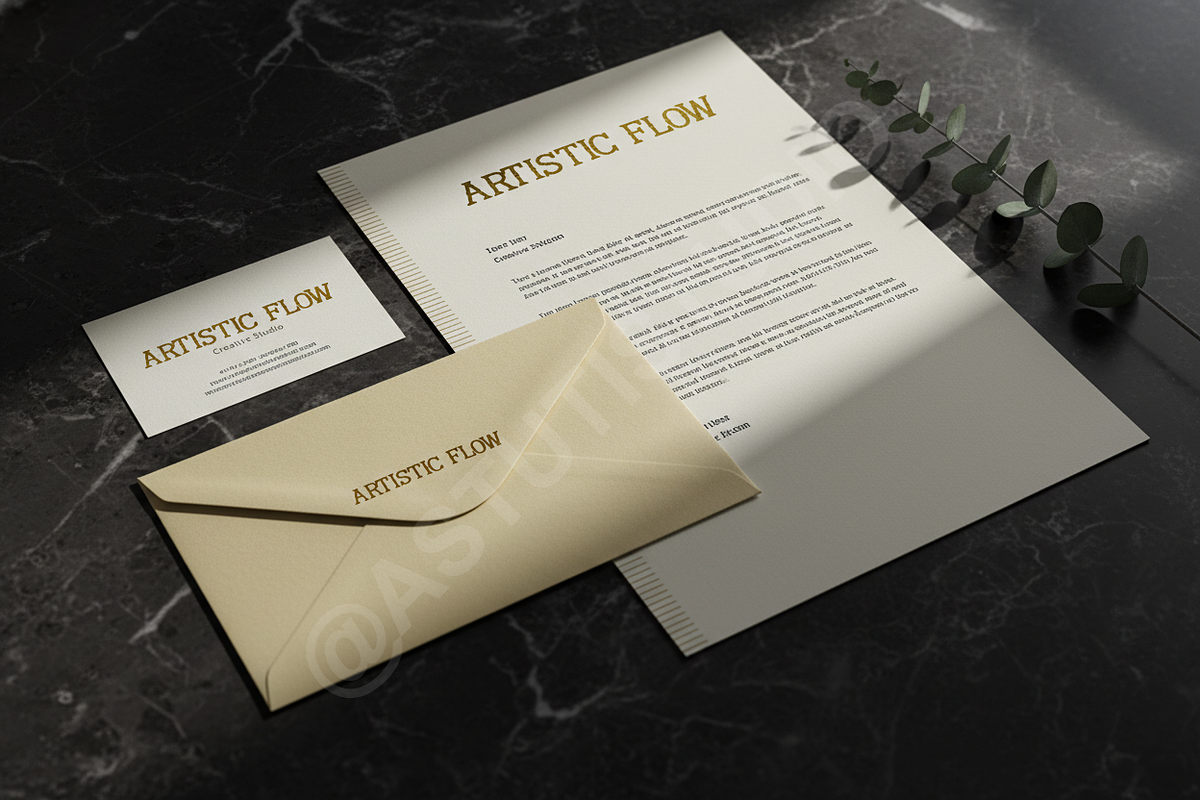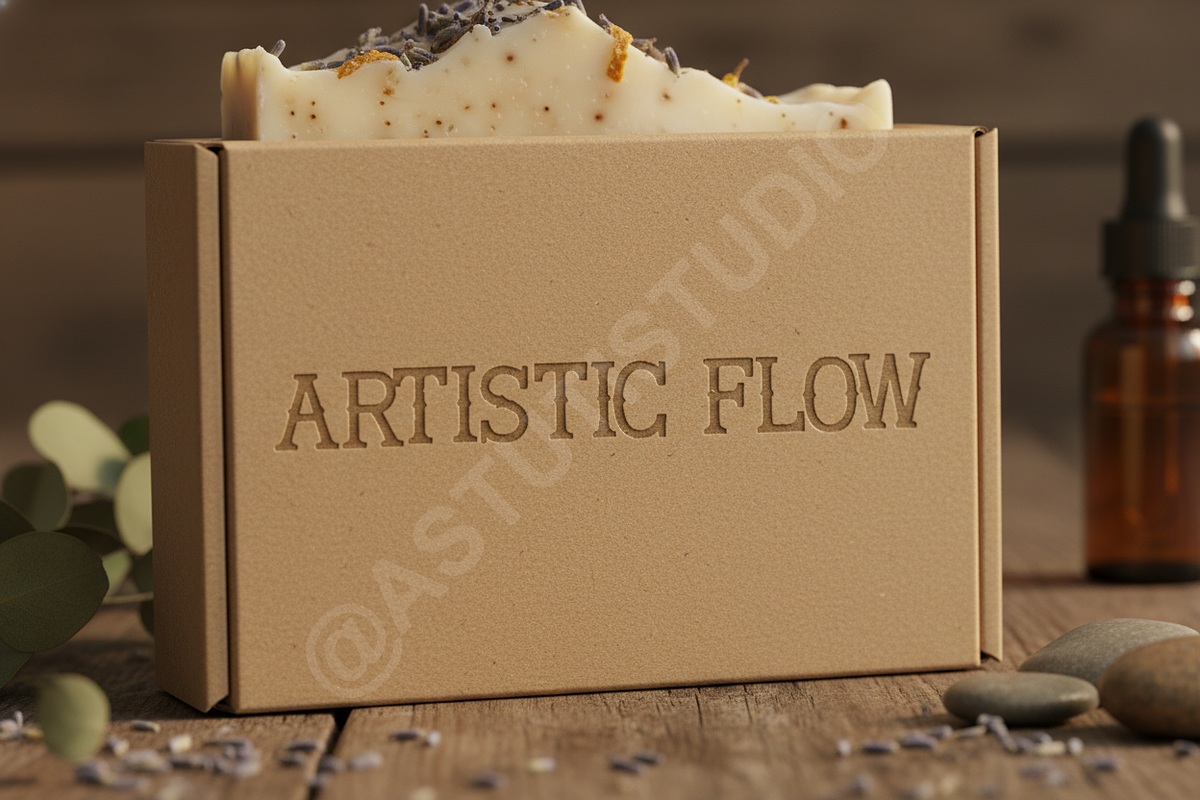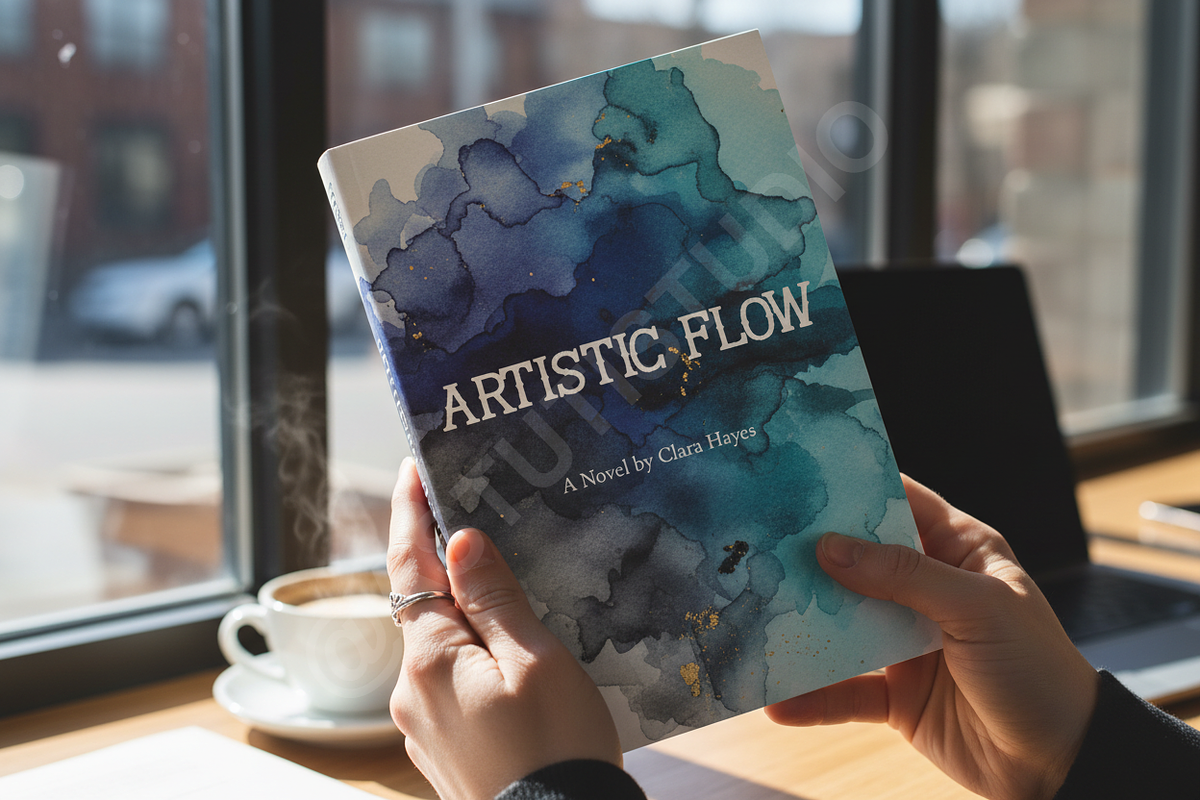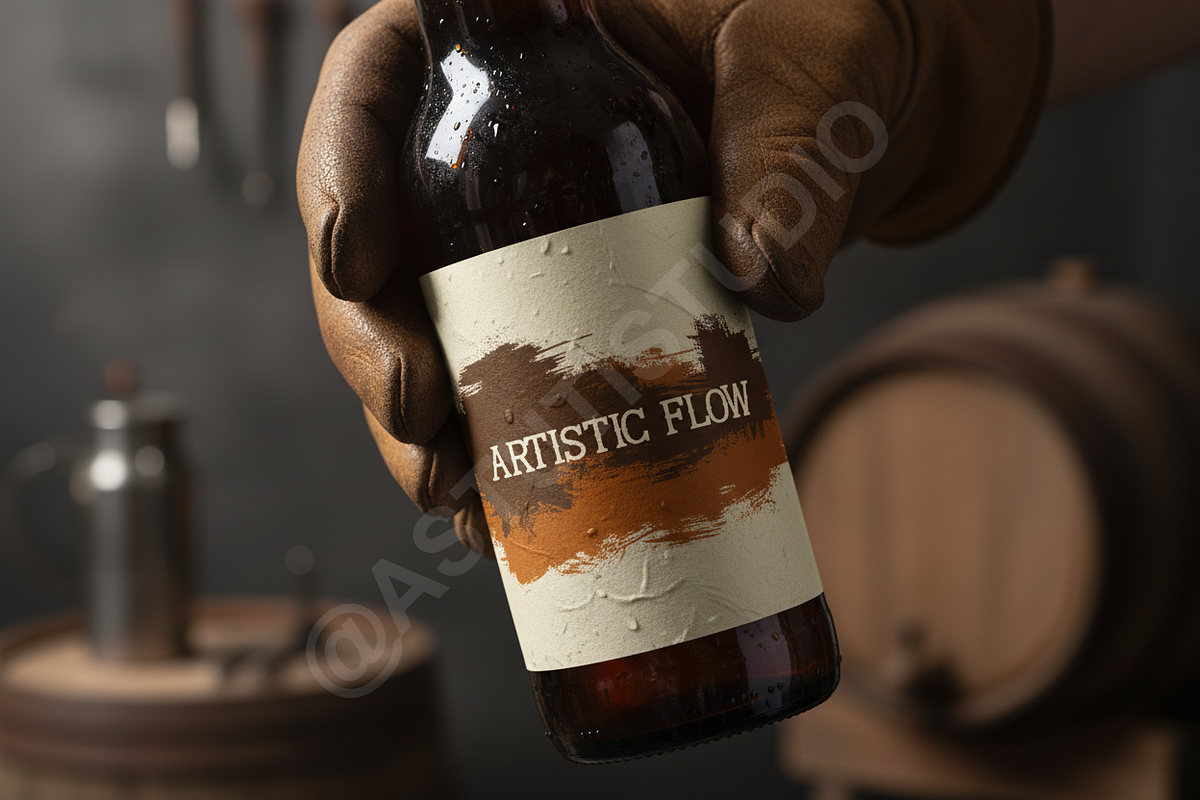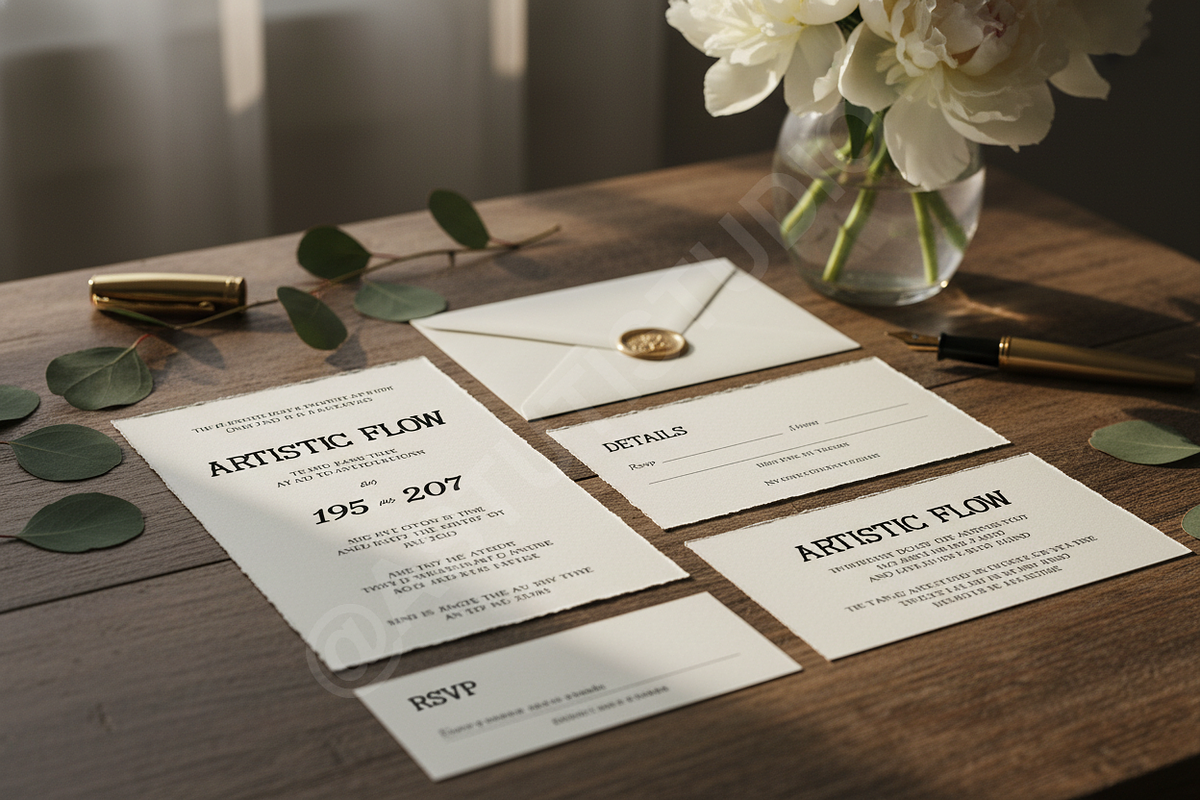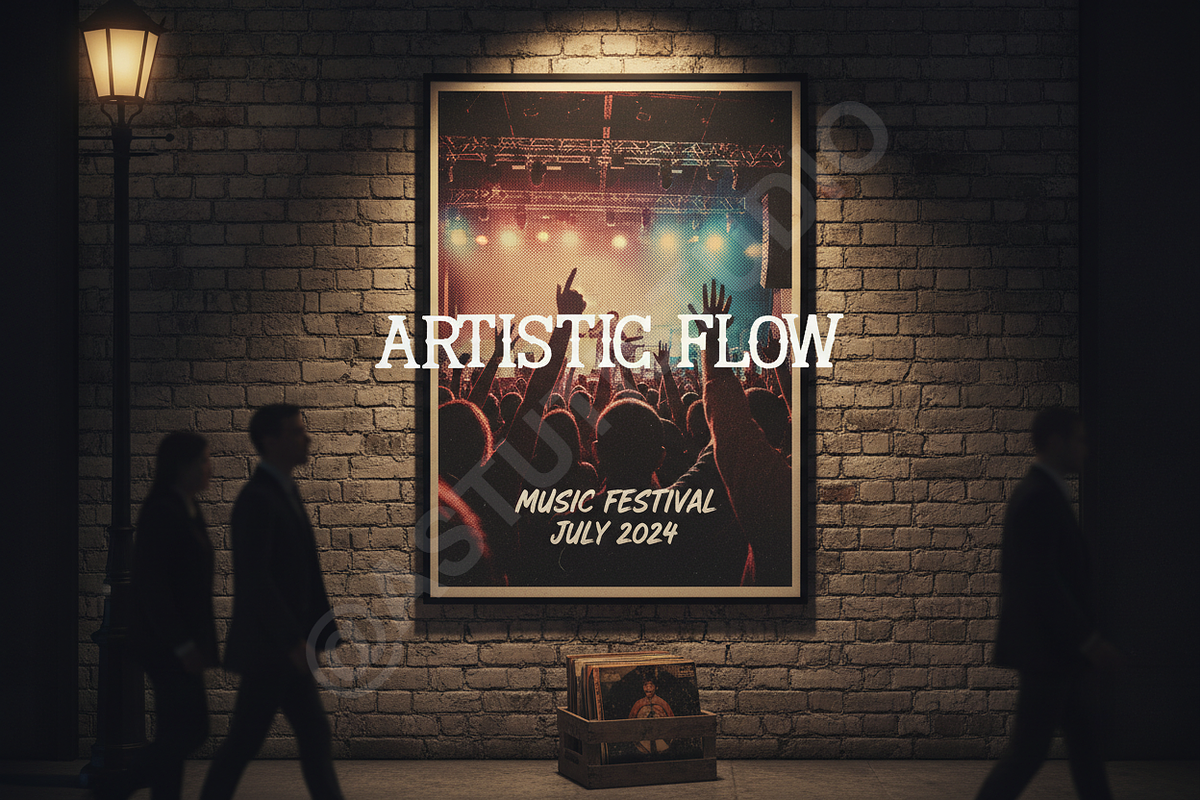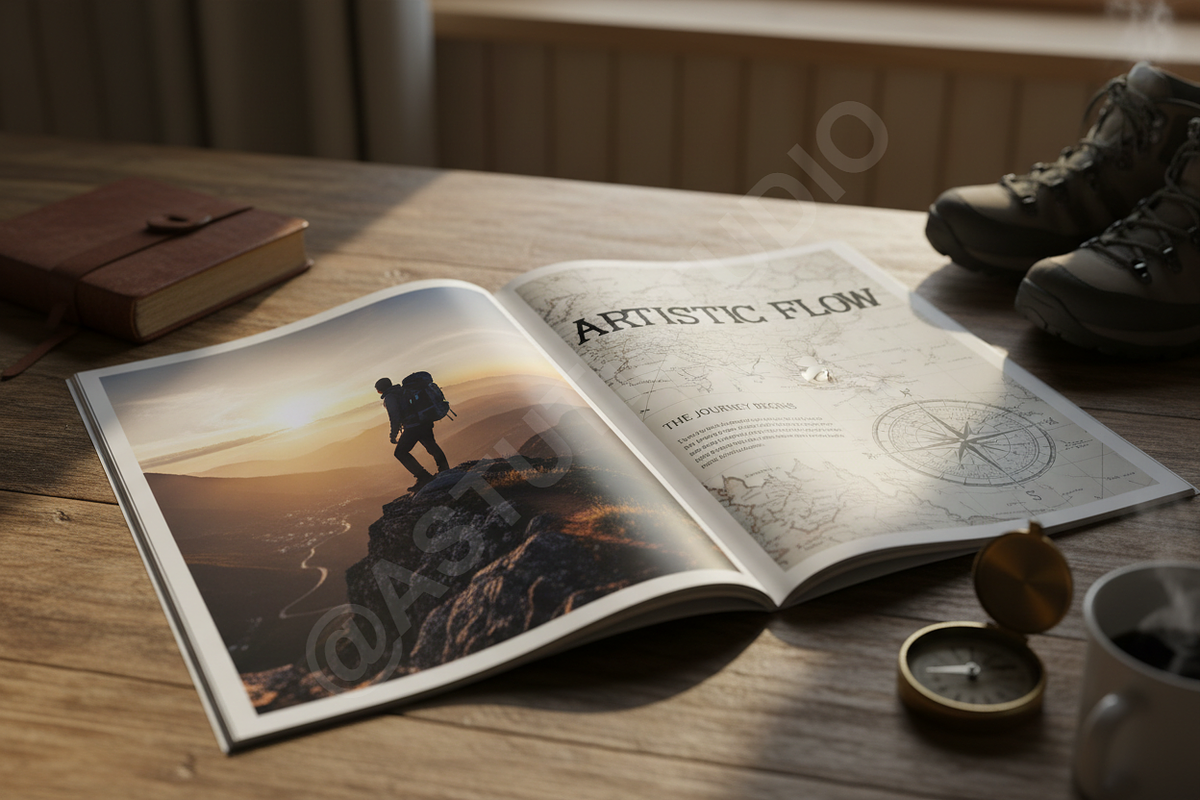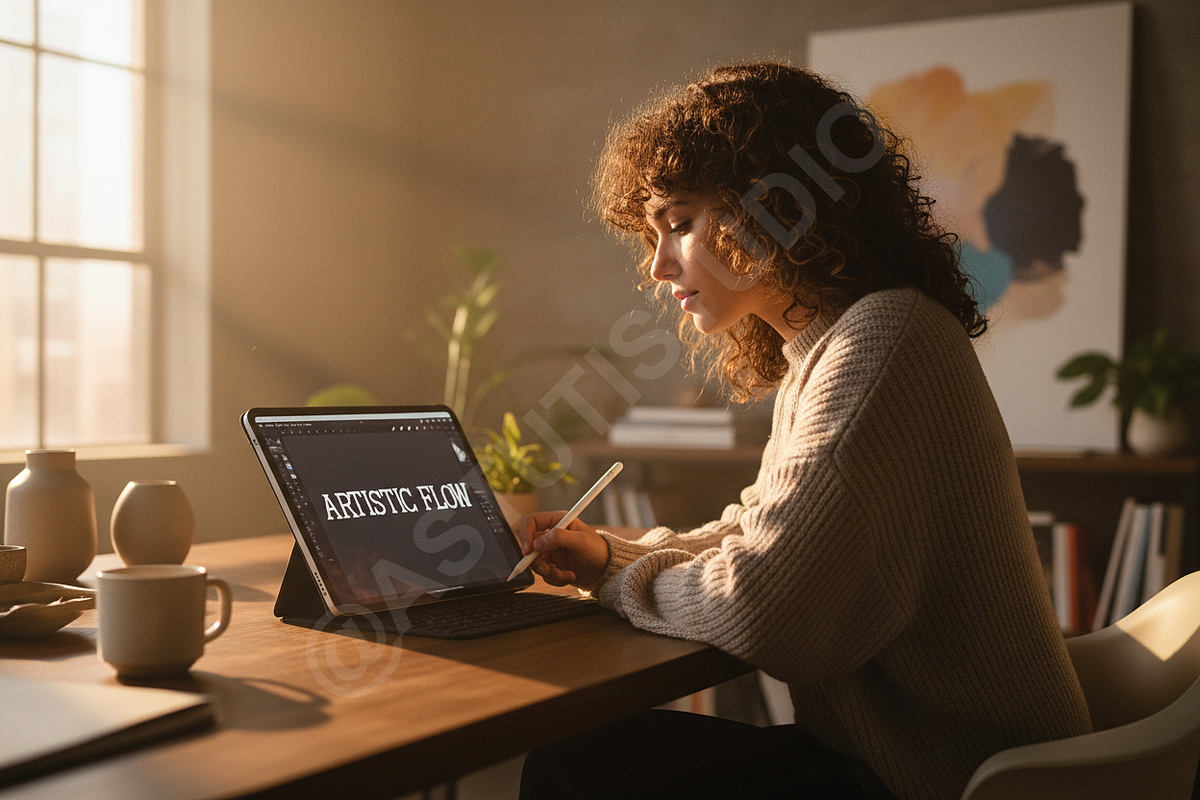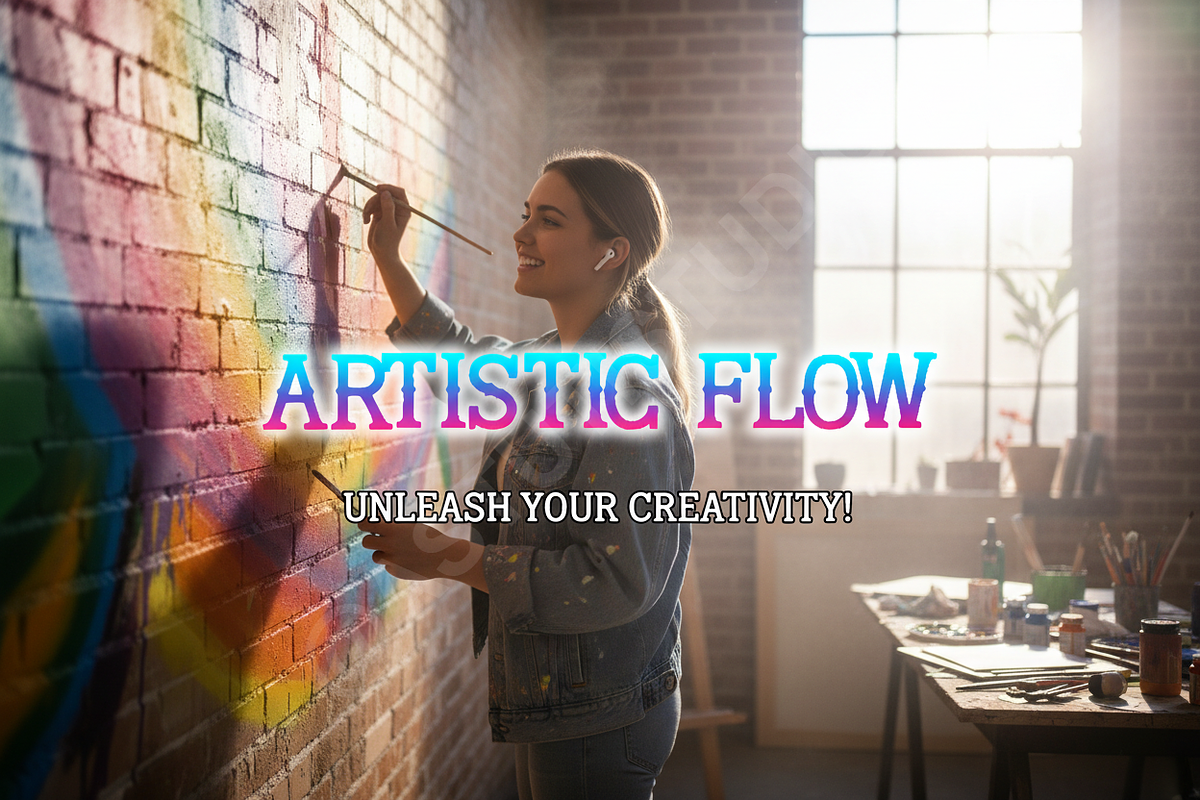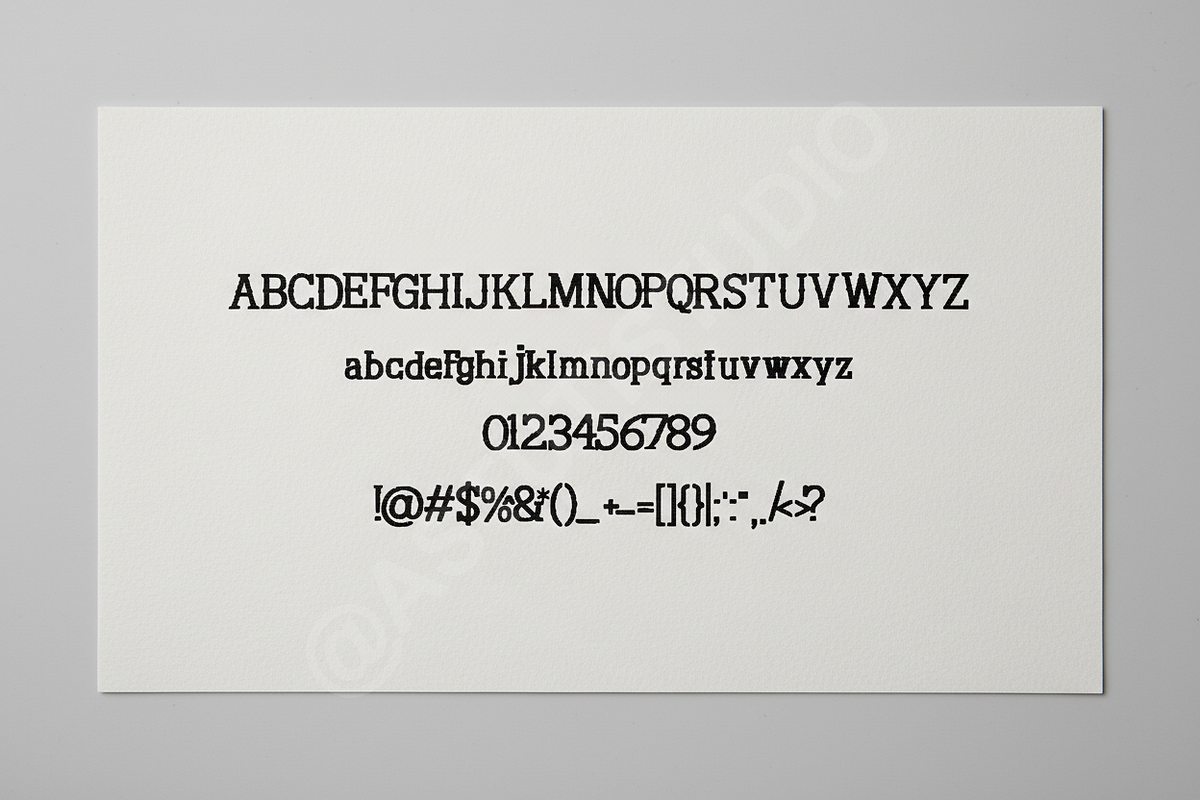
Heyudo - Modern Elegant Serif Typefa
Heyudo | A Sophisticated Serif for Luxury Branding
Introducing Heyudo, a meticulously crafted serif typeface designed to bring a touch of luxury and timeless elegance to your creative projects. With its refined strokes and high-contrast transitions, Heyudo is the quintessential choice for high-end branding, fashion editorials, and a sophisticated social media presence.
Whether you are designing a premium logo, a minimalist magazine layout, or elegant wedding invitations, Heyudo provides a balanced aesthetic that speaks of quality and exclusivity. It is designed to look stunning in both large display headings and smaller body text, maintaining legibility while exuding a high-fashion feel.
Product Features:
- Full Uppercase and Lowercase Set
- Elegant Stylistic Alternates and Ligatures
- Comprehensive Multilingual Support
- Precise Kerning and Modern Proportions
- Clean and Crisp Lines for High-Resolution Printing